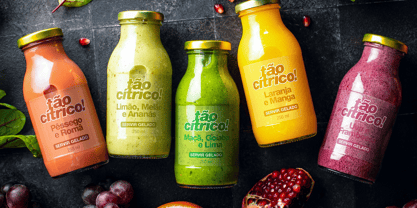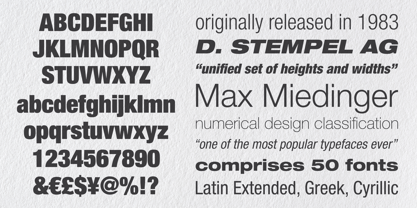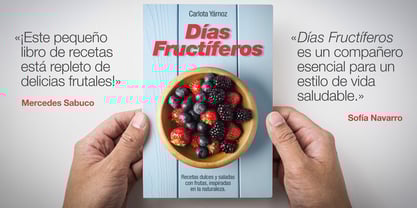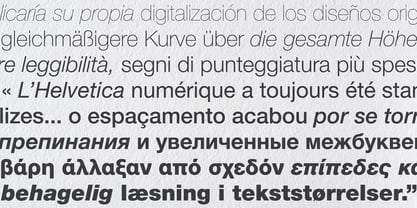
Neue Helvetica® Paneuropean
von Linotype
Die Schriftfamilie Neue Helvetica Paneuropean wurde von Max Miedinger, Linotype Design Studio entworfen und von Linotype veröffentlicht. Neue Helvetica Paneuropean enthält 50 Stile und Familienpaketoptionen. Mehr über diese Familie
Neue Helvetica® is a melding of aesthetic and technical refinements that result in superior design proportions, improved legibility and an expanded range of uses beyond the original Helvetica typefaces
Neue Helvetica World fonts enable the setting of pan-European languages, in addition to Arabic, Armenian, Cyrillic, Georgian, Greek, Hebrew, Thai and Vietnamese. The Cyrillic fonts include full support of the Unicode block, including characters for Bulgarian, Mazedonian, Serbian and Ukrainian.
Designer: Max Miedinger, Linotype Design Studio
Foundry: Linotype